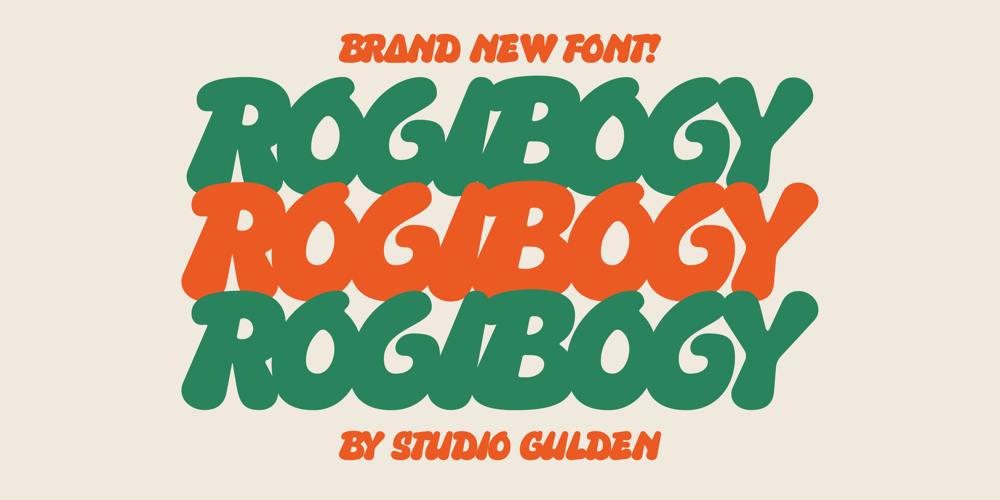
SG Rogibogy Font Family was designed by Umar Al Farouq, Jodi El Ghazi and published by Studio Gulden. SG Rogibogy contains 4 styles and family package options. SG Rogibogy is a playful font, suitable for your design that needs a cute touch. There are several alternative choices of letters available.